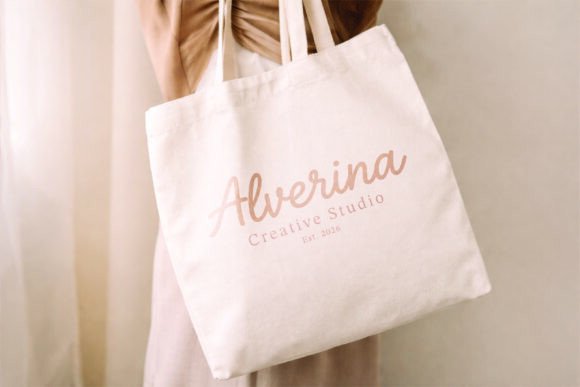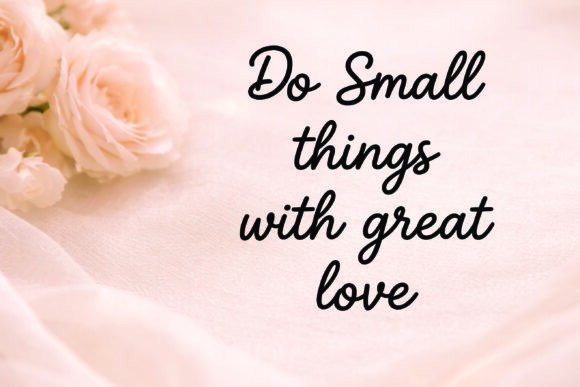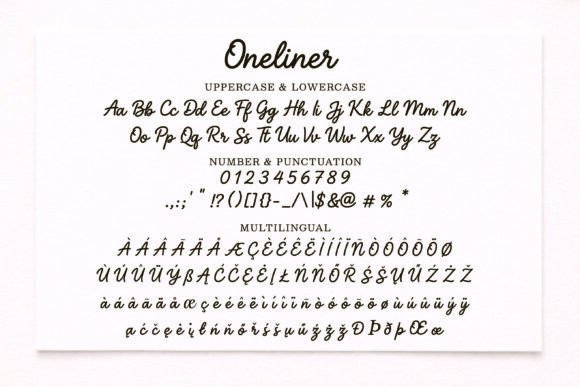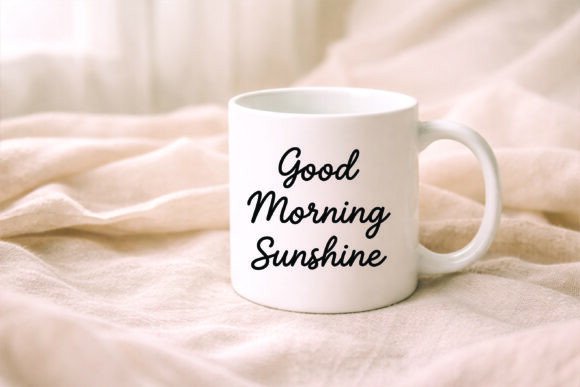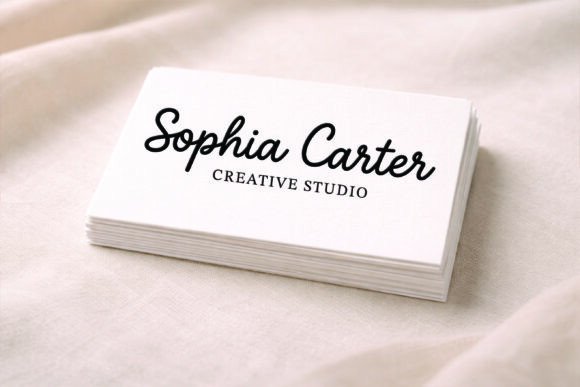
Introduction to Oneliner Font Font
Fonts play a crucial role in design, and the Oneliner Font font is a typeface that brings both character and versatility to any project. Whether you’re working on a branding project, a website, or a print design, the Oneliner Font font offers a unique style that can elevate your work.
Oneliner is a modern and elegant signature script font with smooth flowing strokes and a natural handwritten feel.
Designed with a clean monoline style, it captures the beauty of authentic handwriting while remaining highly readable and versatile Perfect for branding, logos, wedding invitations, social media graphics, packaging, quotes, and editorial design, Oneliner adds a personal and sophisticated touch to any project.
Key Features of Oneliner Font Font
Why Choose Oneliner Font Font?
The Oneliner Font font is more than just a typeface – it’s a design tool that helps you communicate your message with style and clarity. Its unique character set and versatile design make it suitable for a wide range of applications, from elegant invitations to bold headlines.
With its carefully crafted letterforms and balanced proportions, the Oneliner Font font ensures readability and visual appeal across all mediums.
What makes Oneliner Font font special?
The Oneliner Font font stands out with its unique design, exceptional readability, and versatility across various design applications.